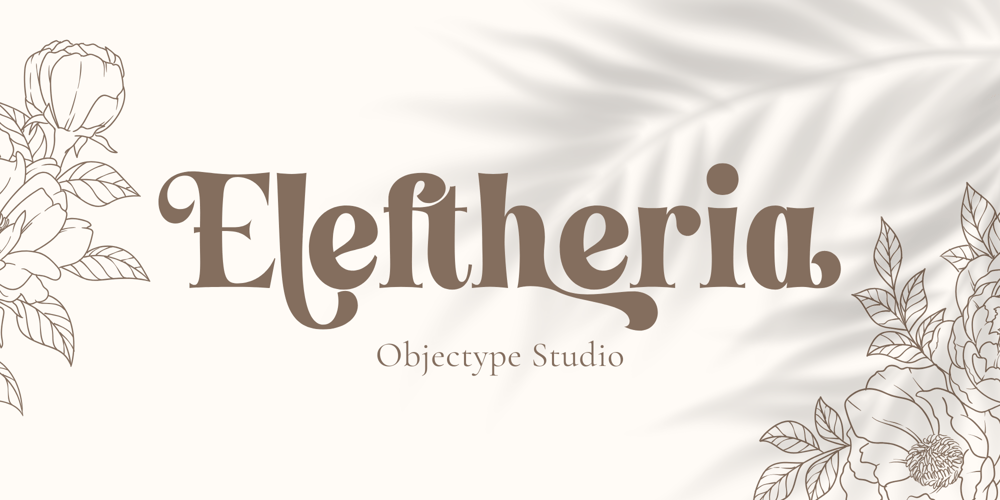
Eleftheria Font Family was designed by Candi Erwanto and published by Objectype. Eleftheria contains 1 styles and family package options. Discover beauty and uniqueness in our serif font style. This font is carefully and meticulously designed, encompassing 340 glyphs that provide a variety of choices for users. The included ligature feature allows you to create smooth and harmonious letter combinations, making your writing more lively and dynamic.In addition, this font also comes with alternative features that allow you to customize your writing style according to your needs and tastes. With multilingual features, you can reach a wider and more diverse audience.Our serif font is not just a font, but also a tool that can help you create attractive designs and effective visual communication. With 340 glyphs, you have the freedom to experiment and create unique and appealing designs. Explore endless possibilities with our serif font!